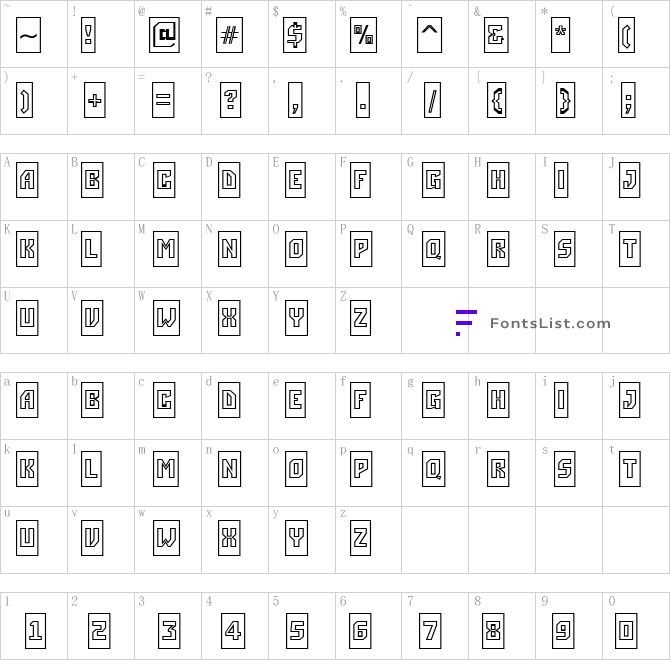
- Font Name:a_SimplerCmOtl
- Subfamily:ArsenalCompany: a_SimplerCmOtl: 1998
- Full Name:a_SimplerCmOtl Bold
- PostScript:a_SimplerCmOtl-Bold
a_SimplerCmOtl-Bold.ttf is a very beautiful artistic font, a_SimplerCmOtl-Bold.ttf is widely used in the design and printing of various books and pictures,a_SimplerCmOtl-Bold.ttf has a strong visual impact,a_SimplerCmOtl-Bold.ttf is a commonly used font in newspapers, magazines and books, and is used in posters, e-commerce Poster design, store design, logo design, font design and other fields.a_SimplerCmOtl-Bold.